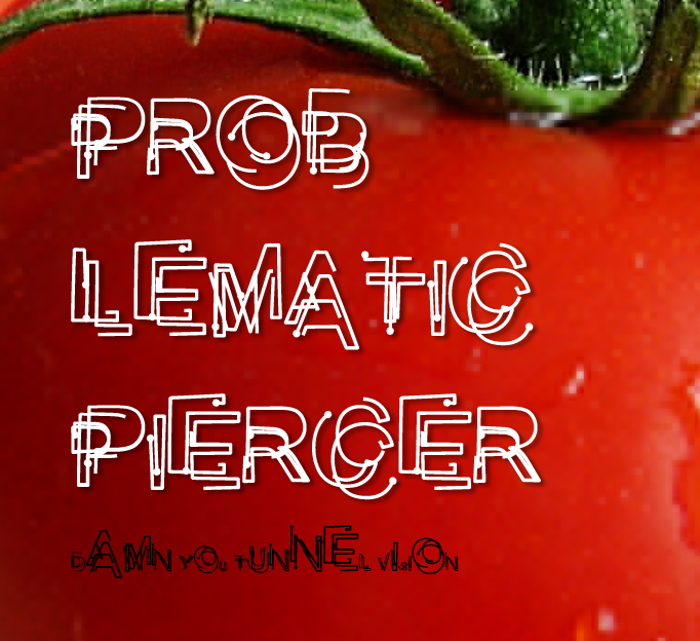
Problematic Piercer Font
Problematic Piercer is a creative font for use in headlines. It has a look and feel of metal piercings in the shape of letters.